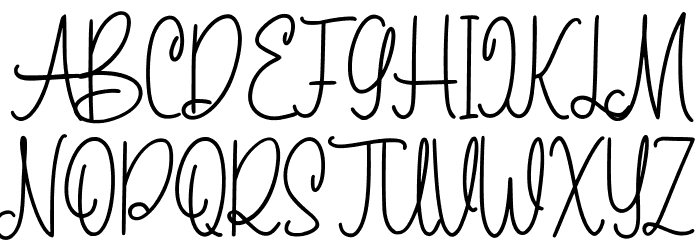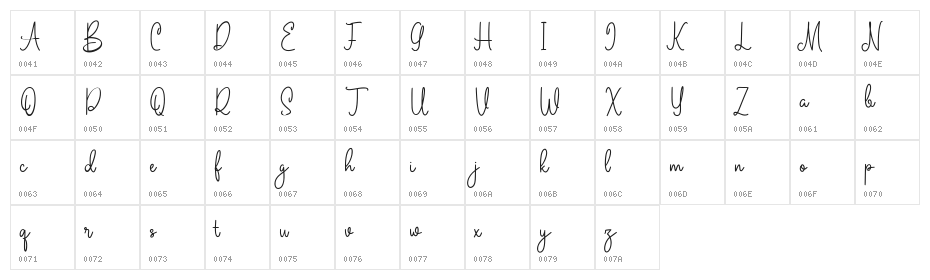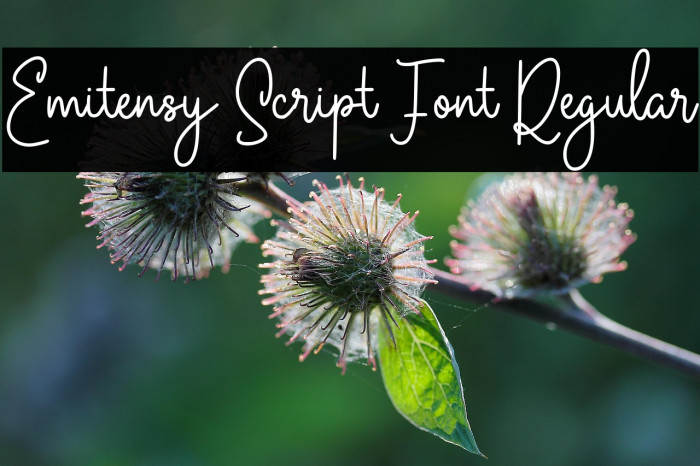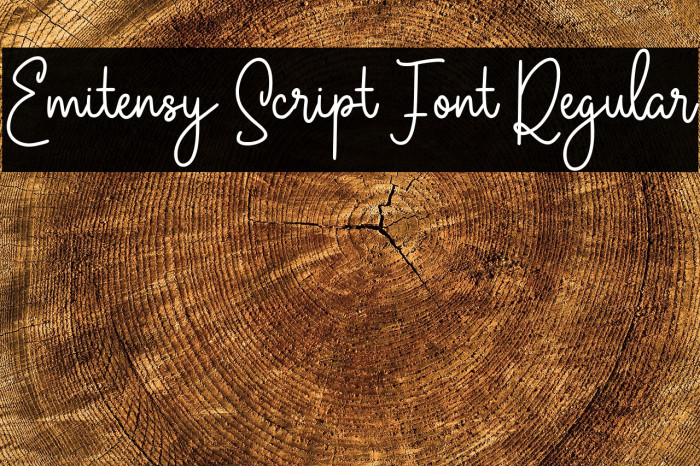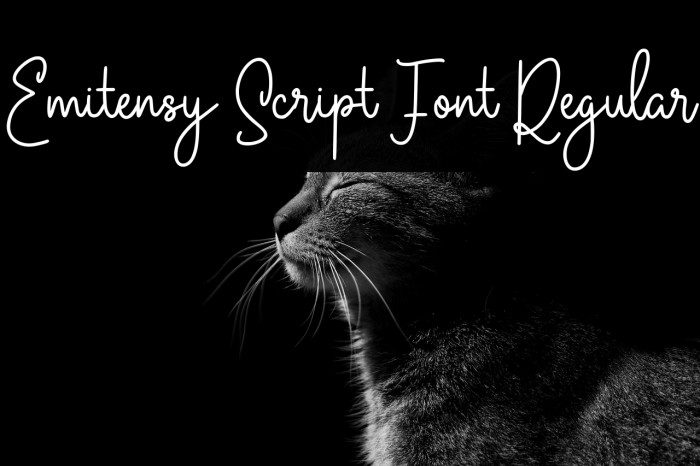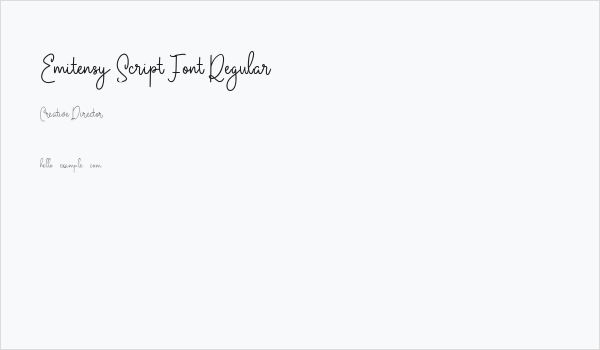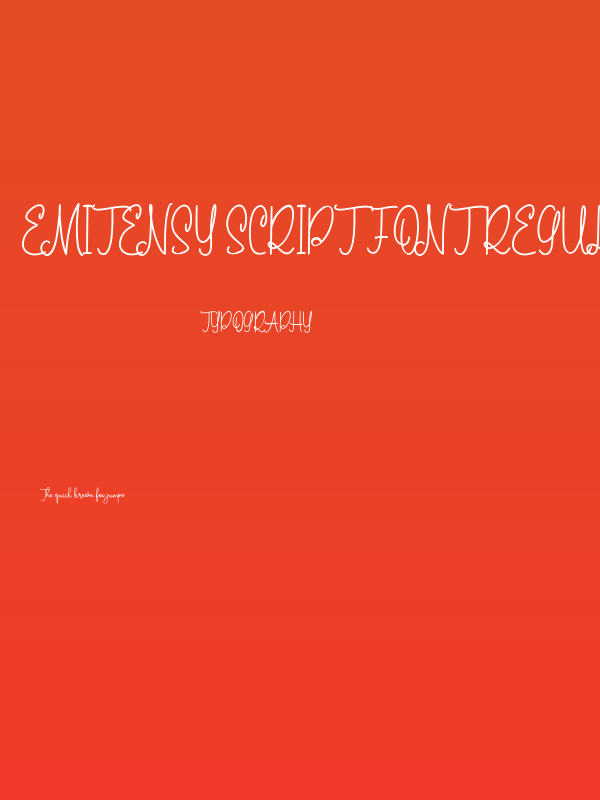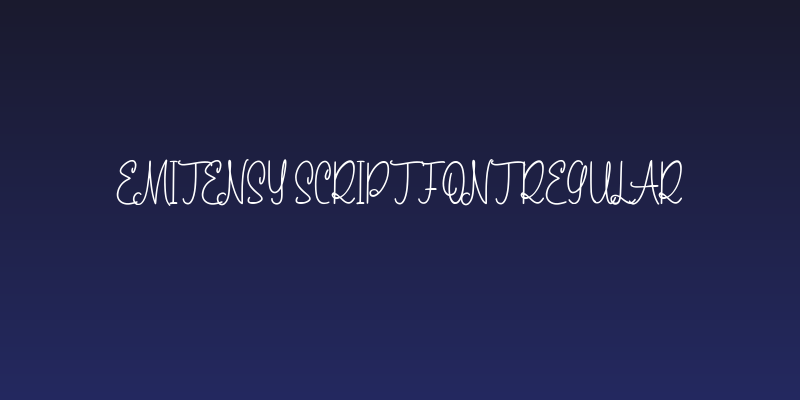
Emitensy Script Font Regular Font
Emitensy Script Font Regular Description
This font exhibits a flowing, cursive style with elegant loops and swashes, giving it a handwritten appearance. The uppercase letters are tall and slender, with a consistent stroke width that adds to its graceful look. The lowercase letters maintain a cohesive flow, connecting smoothly with each other, which enhances the script's fluidity. The font's design is both sophisticated and approachable, making it suitable for a variety of creative applications. Its balanced proportions and clear legibility ensure it stands out while remaining easy to read.
| Proposed Projects | Ideal for wedding invitations, greeting cards, branding, and social media graphics. |